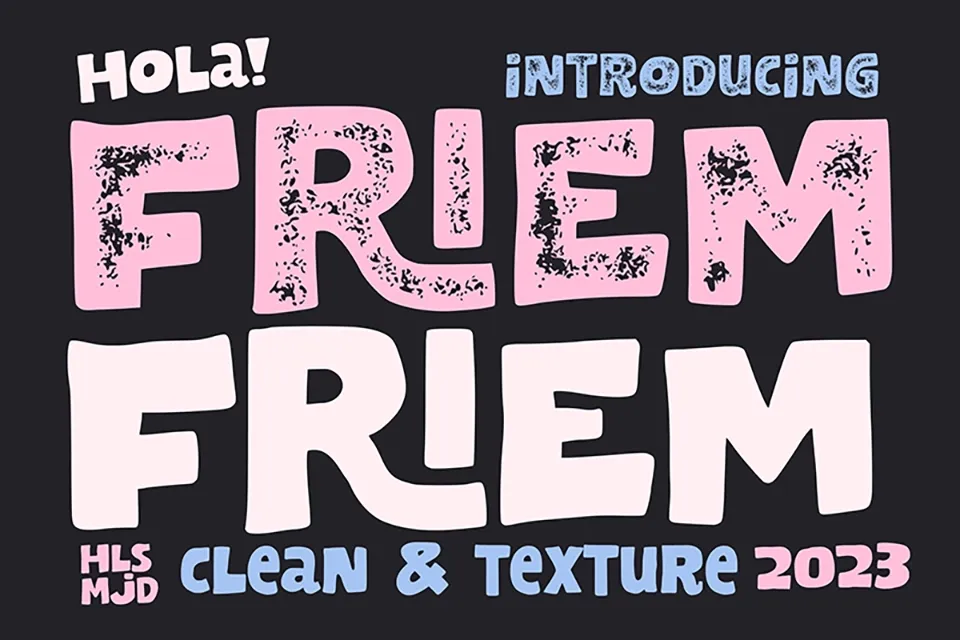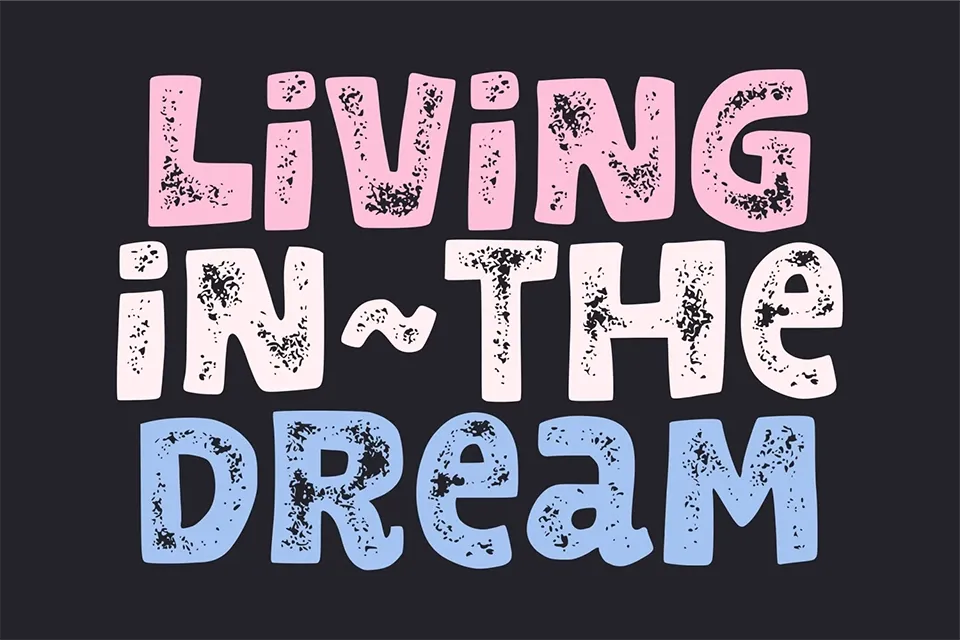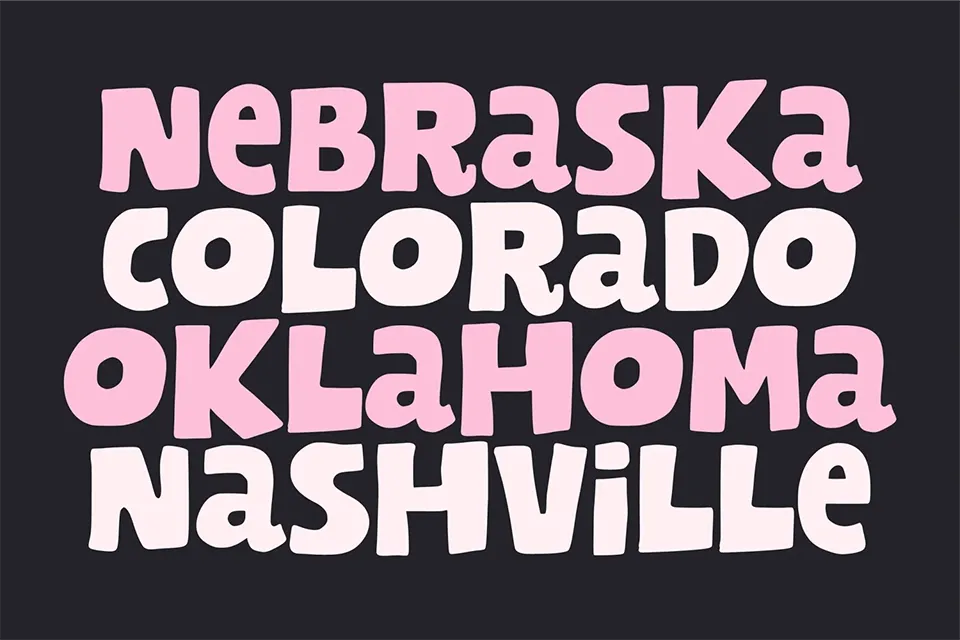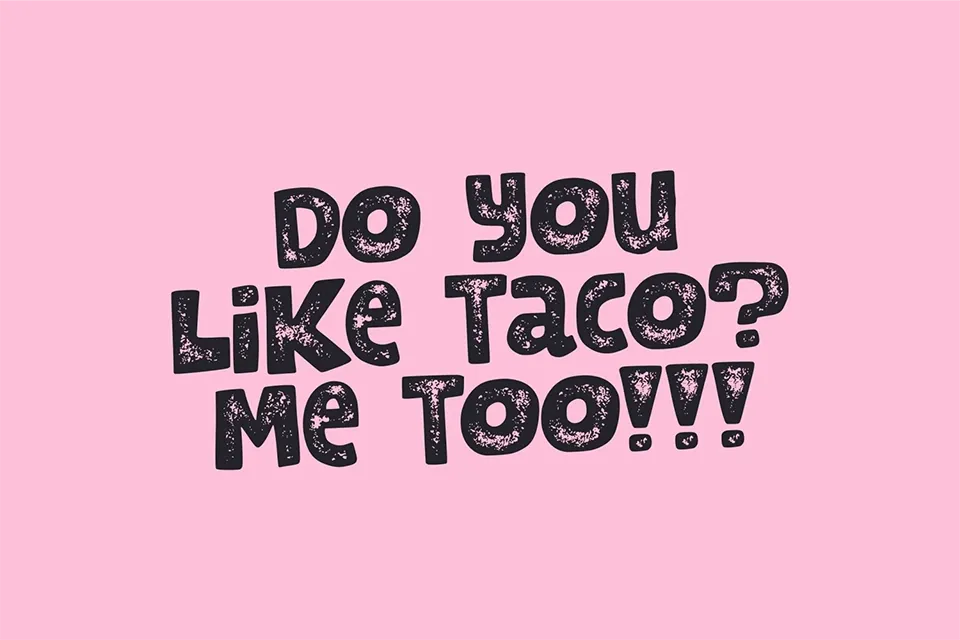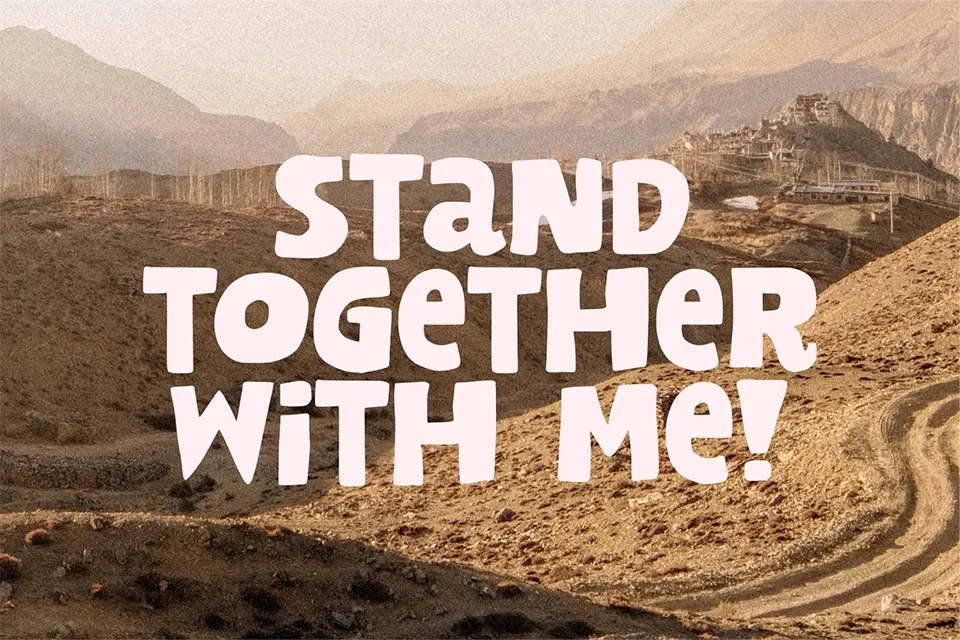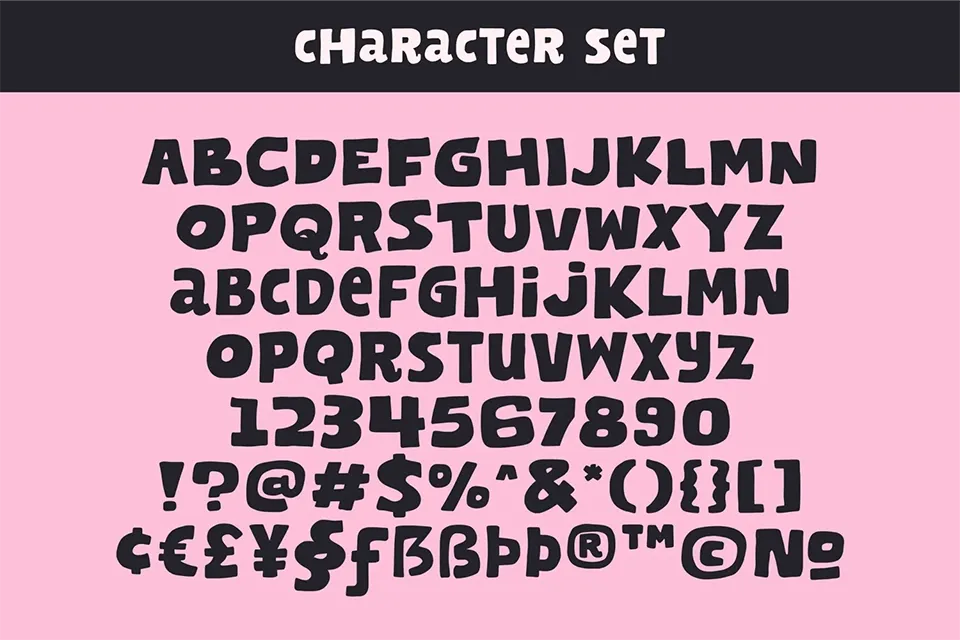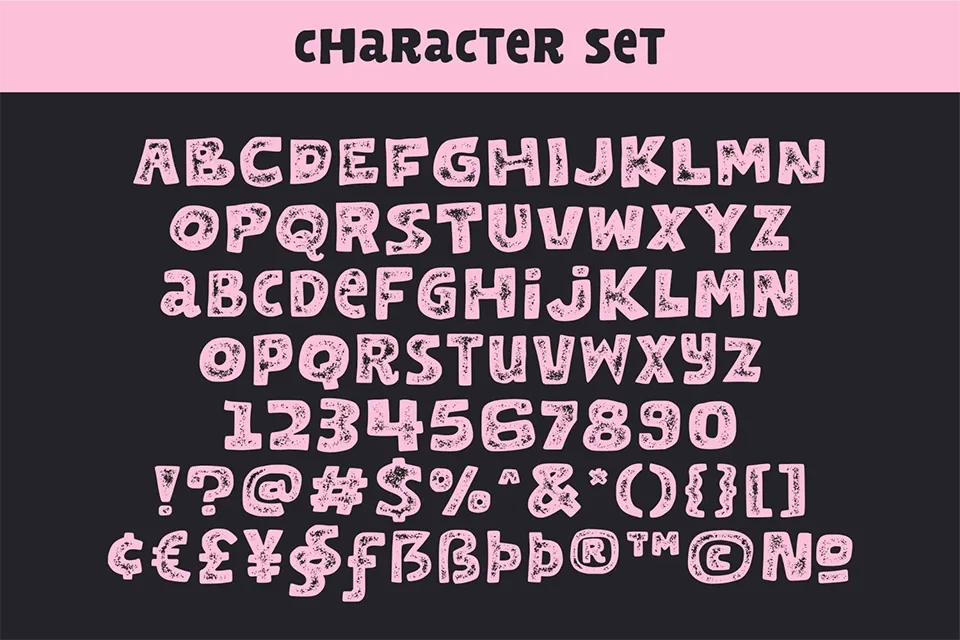
Friem Font
Friem Font is a playful and versatile typeface designed to bring a fresh, creative touch to your projects! Friem comes in two distinct styles: Clean and Texture, offering flexibility for various design needs. Its bold, quirky shapes and handcrafted aesthetic make it perfect for branding, posters, social media graphics, and more. Whether you’re aiming for a modern vibe or a textured, rustic feel, Friem delivers charm and uniqueness in every letter. Crafted with attention to detail, this font is ideal for designers looking to make their work stand out. Elevate your designs with Friem Font—fun, stylish, and full of personality!